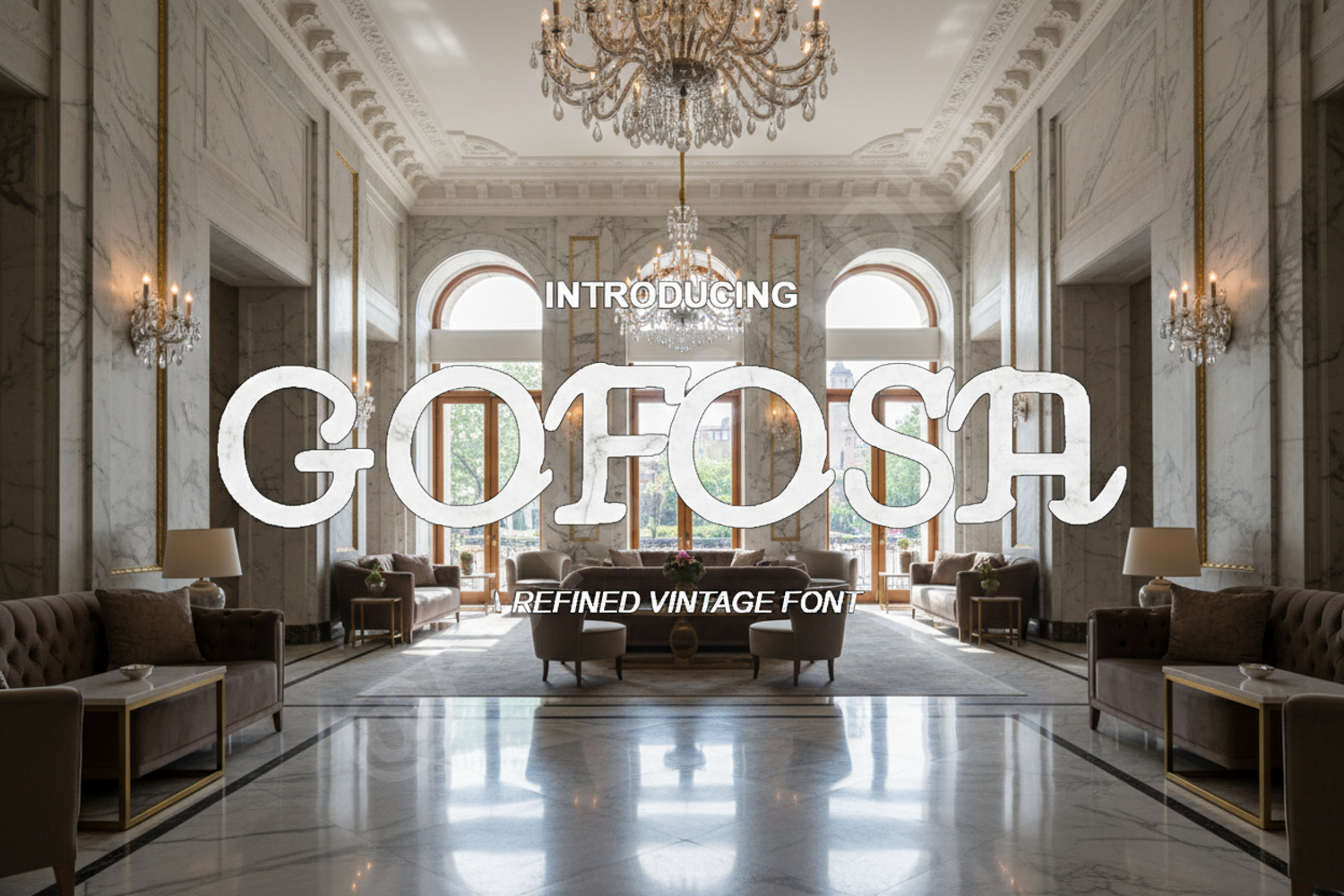
Gofosa - Sophisticated Modern Sans Serif
Gofosa
Experience the perfect blend of contemporary elegance and functional design with Gofosa. This sophisticated modern sans serif typeface is meticulously crafted to bring a touch of luxury and clarity to your creative projects. Whether you are aiming for a minimalist aesthetic or a bold statement, Gofosa provides the versatility needed for high-end results and professional presentation.
- Full set of uppercase and lowercase letters
- Comprehensive numerals and punctuation
- Extensive multilingual support for global reach
- Professional Branding and Identity Systems
- High-end Editorial and Magazine Layouts
- Modern Logo Design and Wordmarks
- Social Media Graphics and Stylish Headers
- Elegant Wedding Stationery and Invitations
- Sleek Website and Mobile App Interfaces